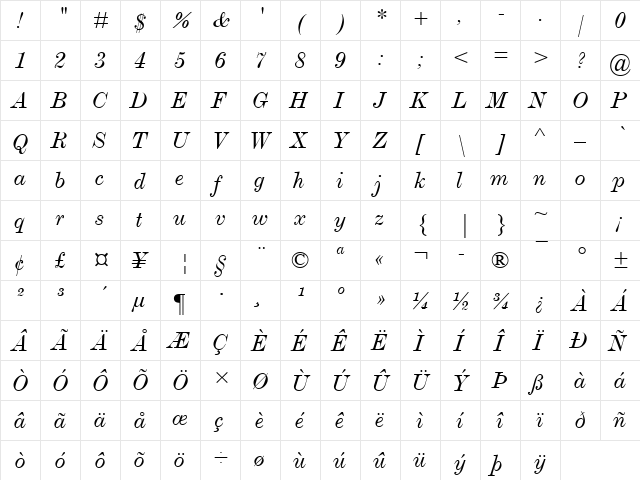
ModernMT Extended Italic
| Foundry | Agfa Monotype Corporation |
Design Context for ModernMT Extended Typeface
ModernMT Extended is a composed and adaptable typeface that performs quietly and consistently across a wide range of design contexts. The dynamic lean of this cut emphasises speed and emphasis in any layout.
Pro Tip: Use ModernMT Extended for emphasis, pull quotes, and subheadings where its slanted energy can add rhythm to the layout.